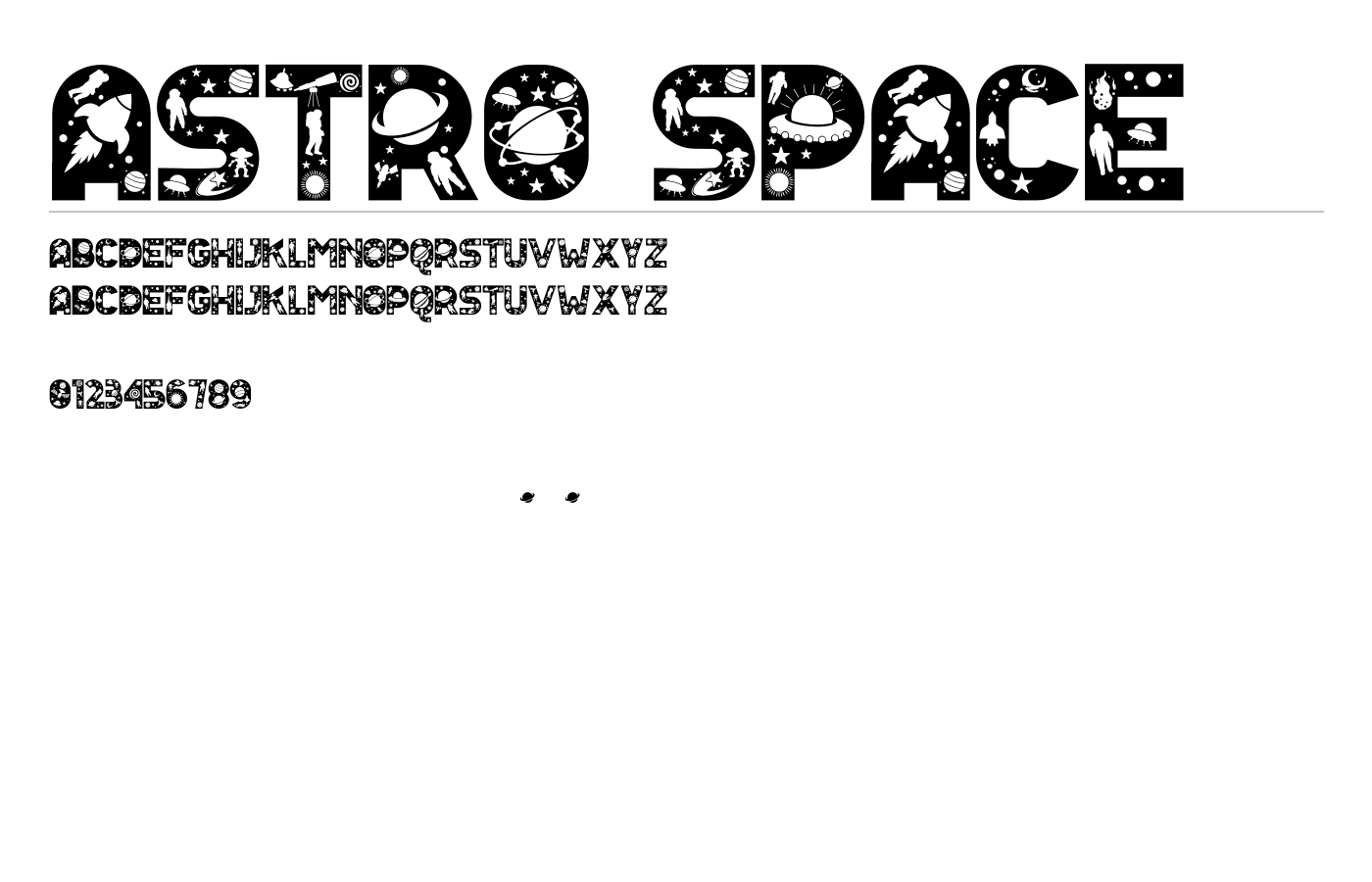
Astro Space Font is a bold, playful display typeface filled with detailed space-themed illustrations, making each letter feel like a small cosmic scene. Its thick, blocky sans serif style with tight spacing and high contrast between the black letterforms and white space gives it a strong presence, perfect for attention-grabbing headlines, children's books, or themed posters. This font brings a fun and adventurous vibe to projects related to science, education, and entertainment, where a lively and imaginative look is desired.
Astro Space Font
About Astro Space Font
| Font family | Astro Space Font |
| Designer | Edy Wiyono |